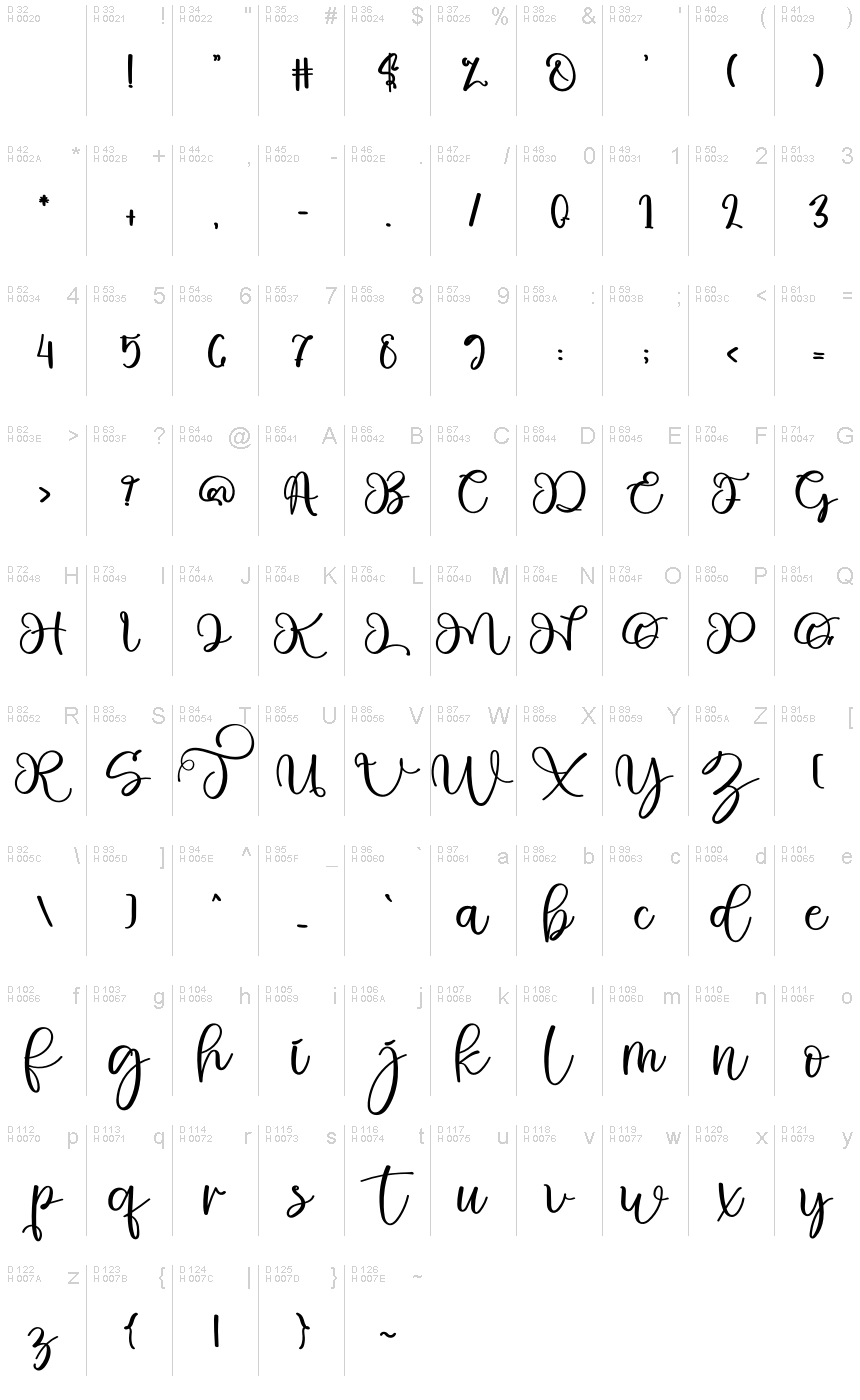
Ontime
Ontime font by FreshtypeINK is a beautifully crafted handwritten typeface that exudes a sense of effortless elegance. Its fluid strokes and playful curves create an inviting charm, perfect for infusing warmth into any design. The expressive letter forms beckon creativity, making it particularly appealing for personal branding projects or unique event invitations.
Visually striking, Ontime stands out with its charmingly exaggerated flourishes, which enhance its artistic flair while maintaining readability. This font not only enhances the aesthetic appeal of contemporary designs but also brings a touch of sophistication to digital art and marketing materials.
Ideal for logo design, social media graphics, and print layouts, Ontime captures attention while delivering a heartfelt message. This versatile font makes every word resonate with personality and style, ensuring your project remains memorable and impactful.